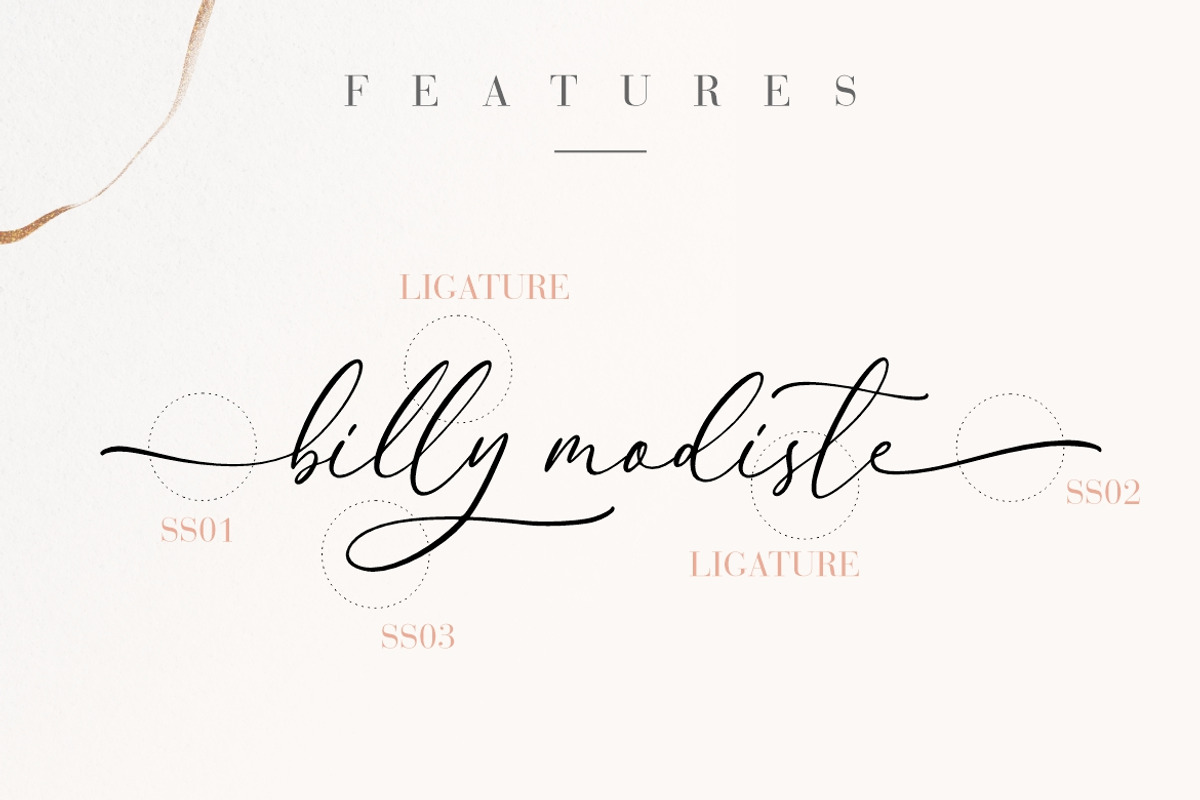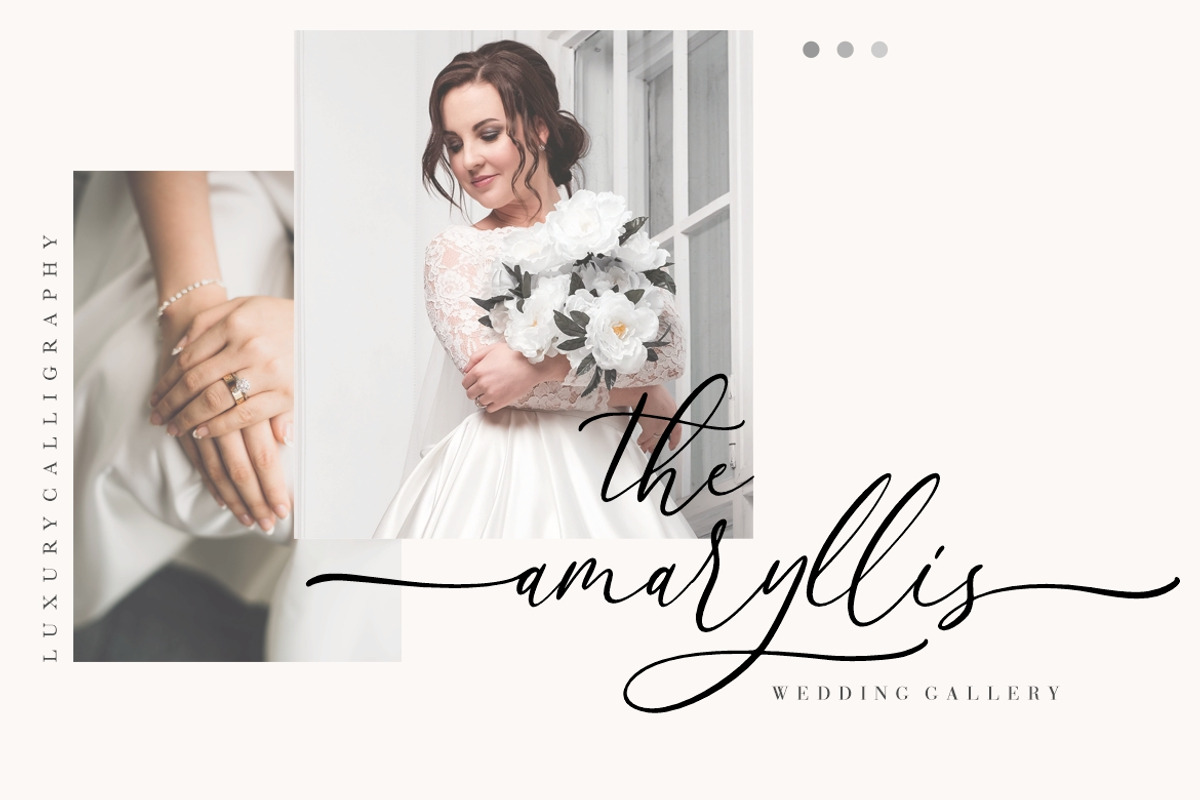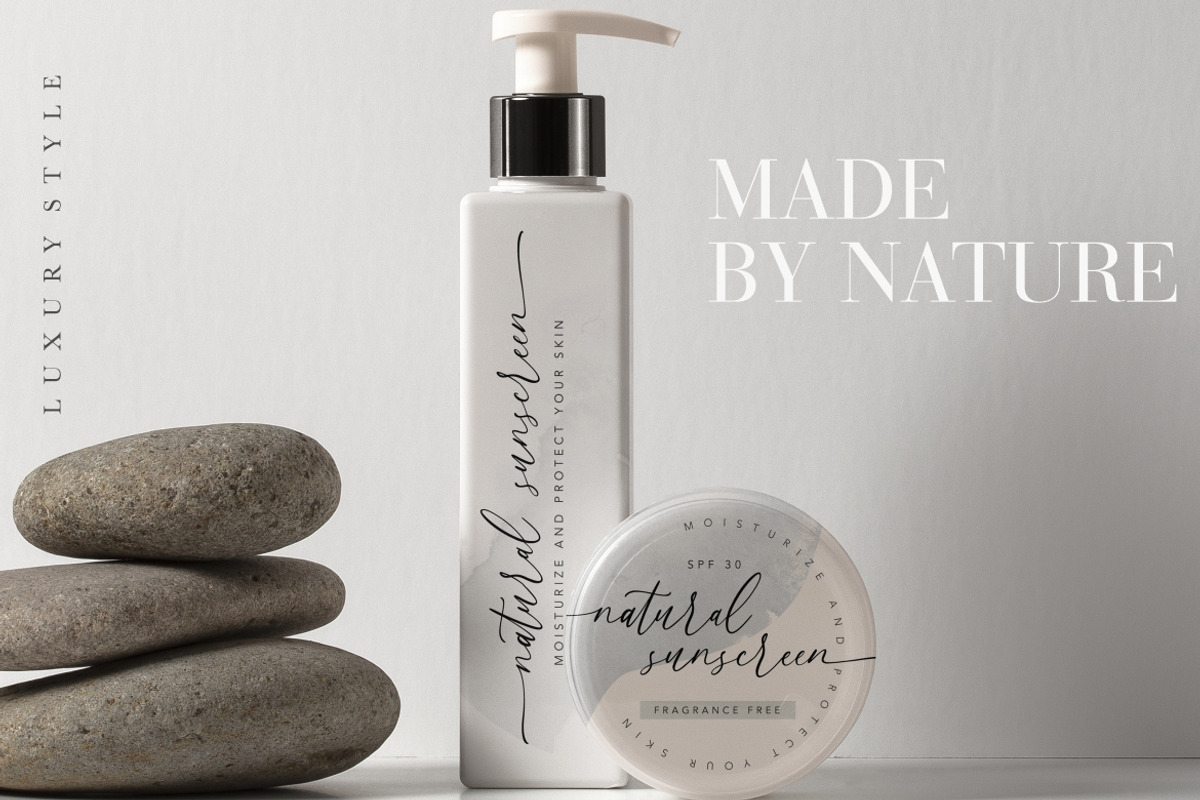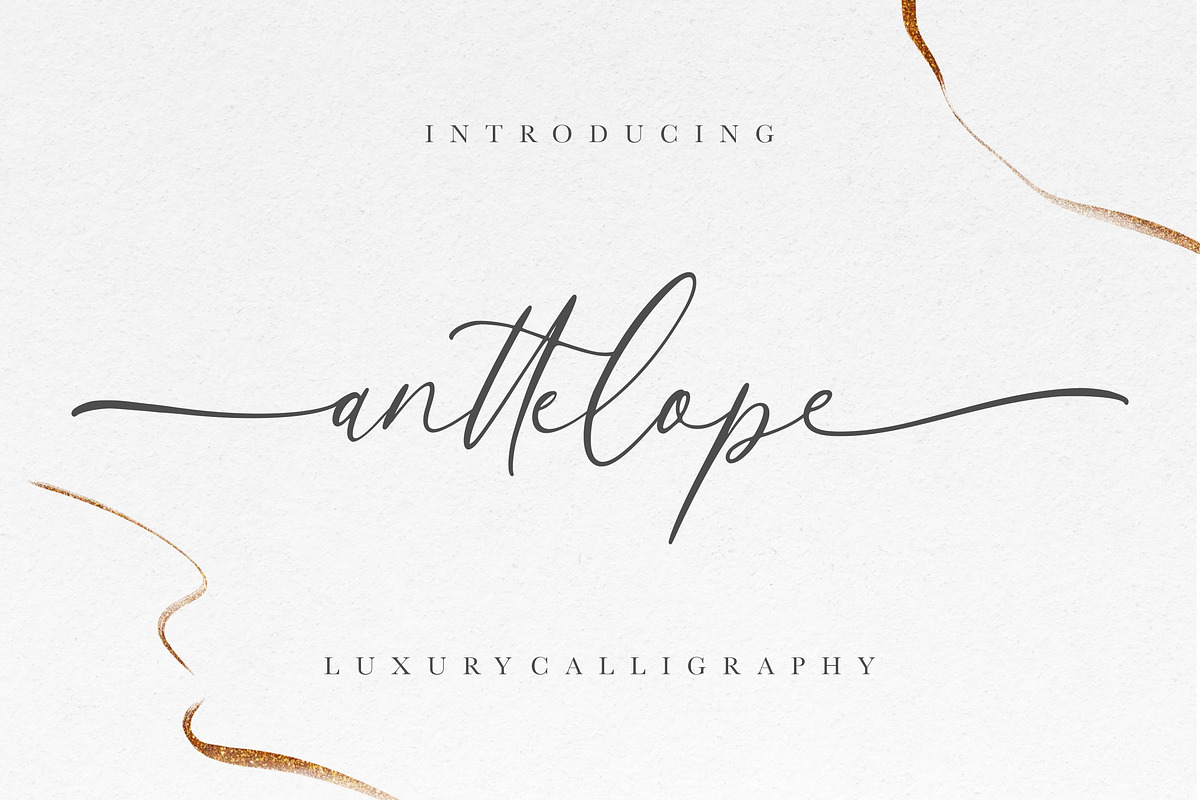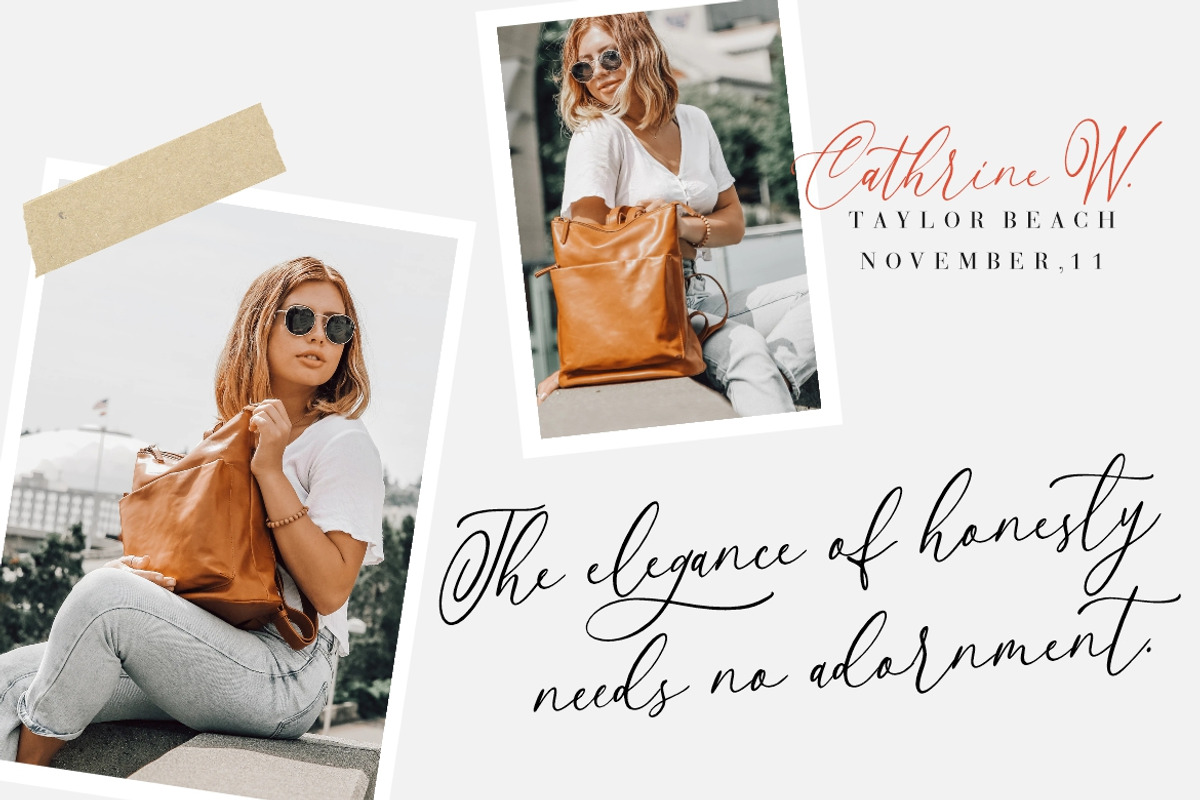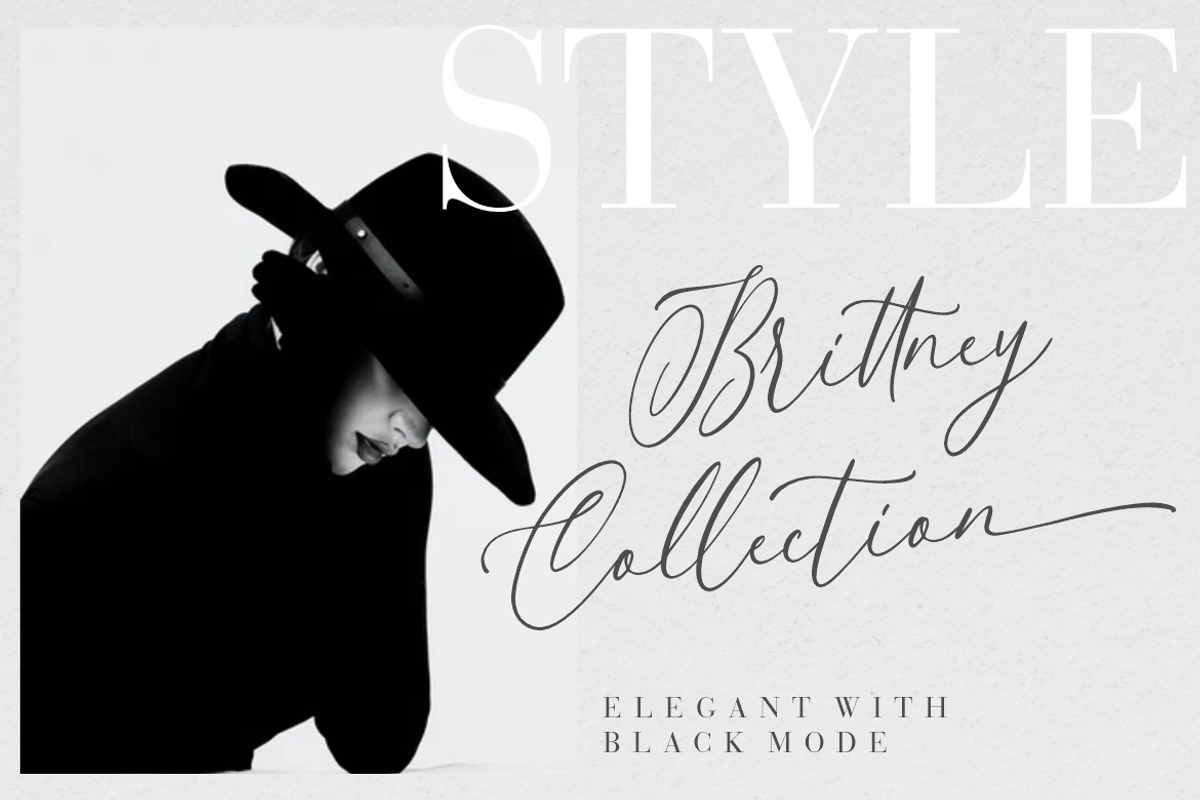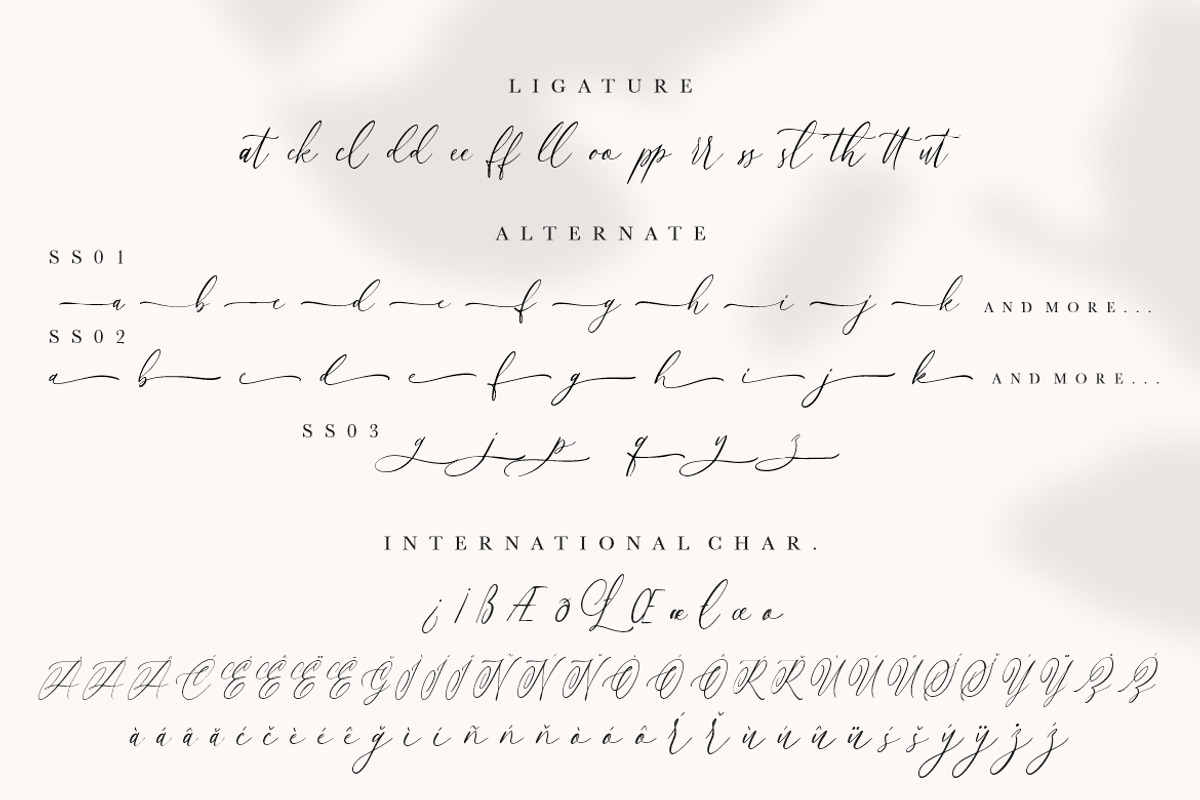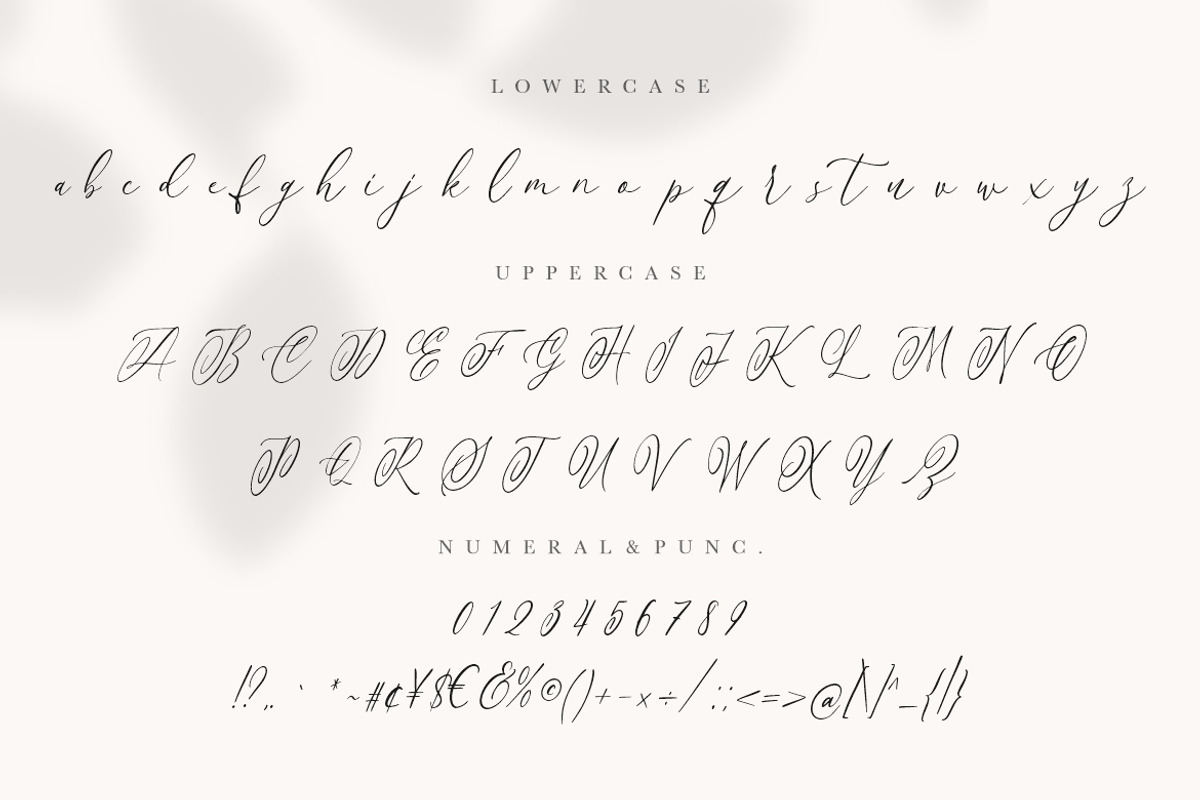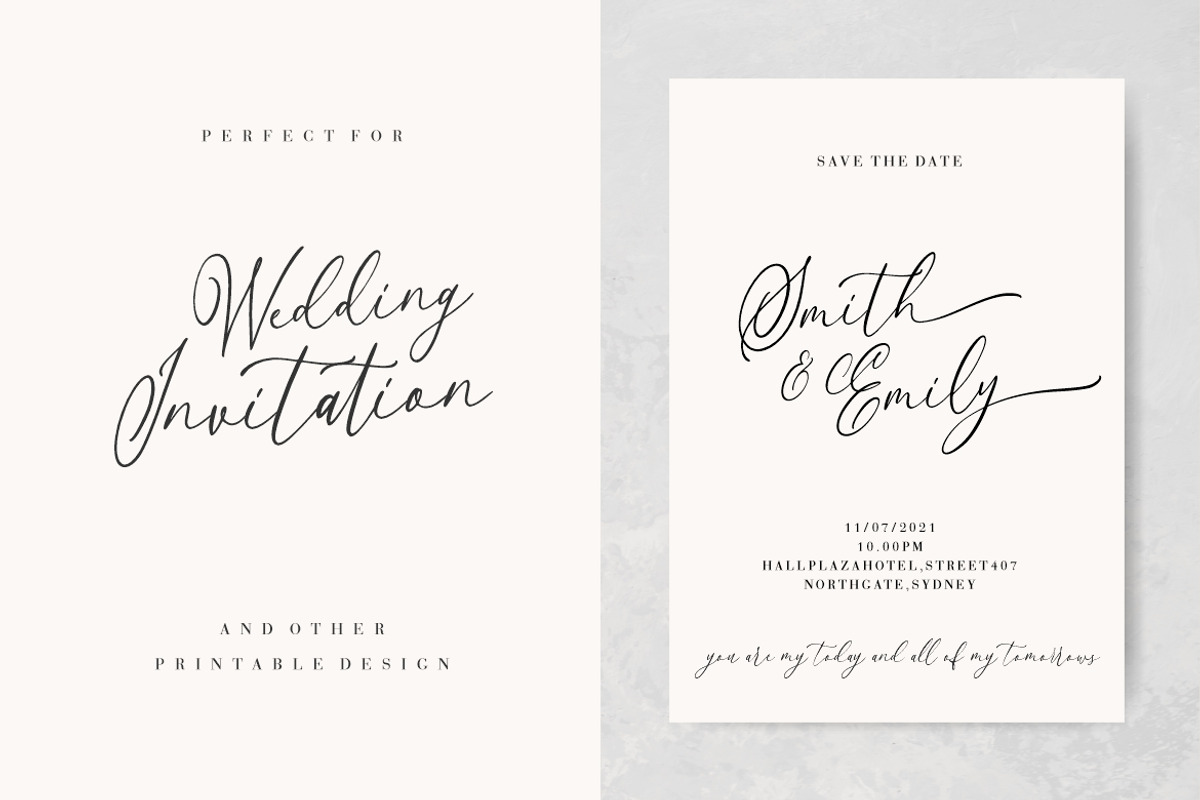
Anttelope Luxury Calligraphy
Anttelope a luxury romantic calligraphy with lovely movements. This font also has lovely ligatures, alternative letters and swashes.
Anttelope is perfect for branding projects, logo, wedding designs, social media posts, advertisements, product packaging, product designs, label, photography, watermark, invitation, stationery and any projects that need handwriting taste.
- Ligature & Alternate